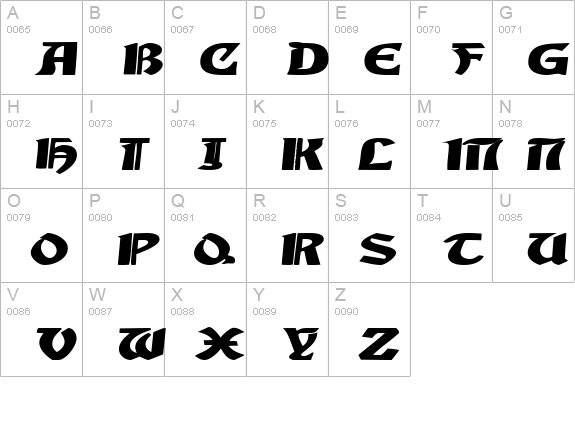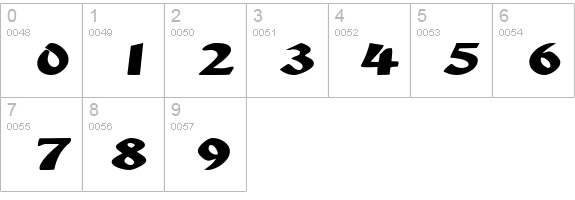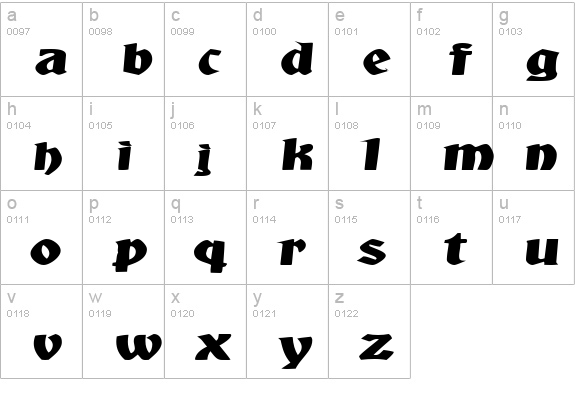
AquiEstaSSK Italic Font Details
AquiEstaSSK Italic is a distinctive, italic variant in the AquiEstaSSK typeface family \xE2\x80\x94 well suited to design and typography projects.
AquiEstaSSK Italic font exudes elegance and sophistication with its sleek and stylish design. The soft curves and slanted angles of this italic typeface add a touch of flair to any project, making it perfect for headings, quotes, and branding materials. This font is a versatile choice for both print and digital designs, as it brings a sense of modernity while maintaining a timeless appeal. Whether you're working on a website, poster, or logo, AquiEstaSSK Italic font will elevate your design to new heights. The best part? AquiEstaSSK Italic font is available for free download at FontsMarket.com. So you can enhance your creative projects with this stunning typeface without breaking the bank. Don't miss out on the opportunity to add AquiEstaSSK Italic font to your font collection today!